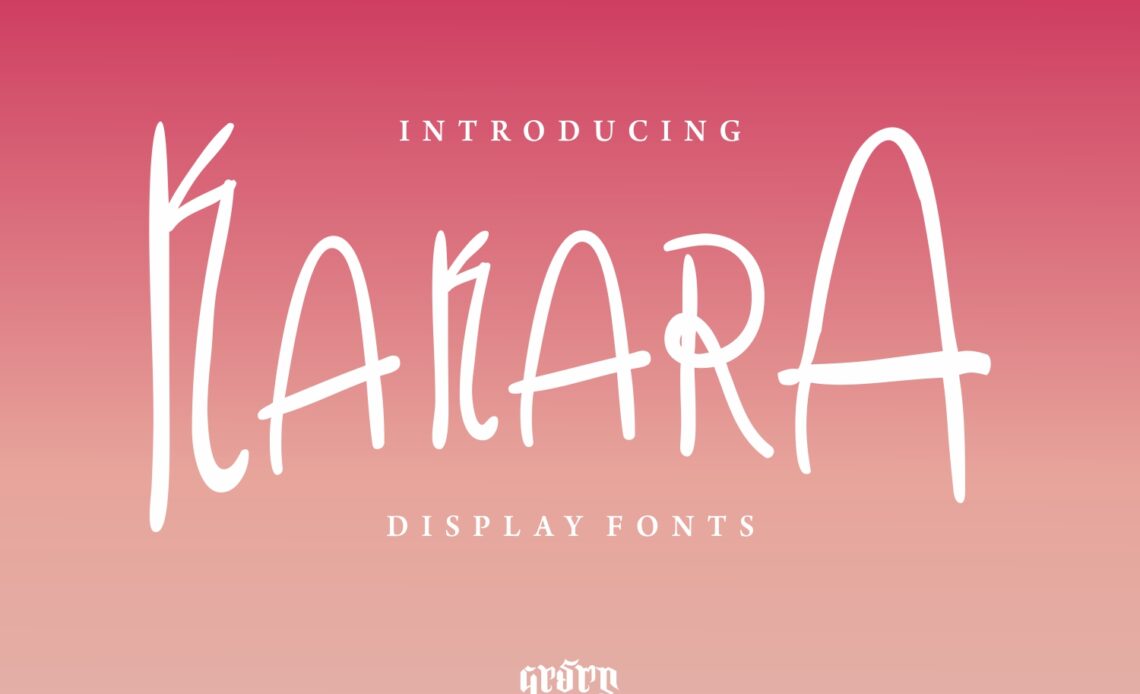
Introducing Kakara Font - Your Go-To Font for Halloween Captivation!
Prepare to be spellbound by Kakara Font, the ultimate display font that ignites the spirit of Halloween with its enchanting charm. This delightfully eerie font, conjured by the creative minds at Garisman Studio, is a masterpiece that will cast a spell on your designs, turning them into captivating works of art.
Kakara Font is not just a font; it's a gateway to a world of enchantment, where your words dance like ghosts in the moonlight. Its friendly and casual handwritten style adds a touch of whimsy to your designs, while its bold and eye-catching presence commands attention. Whether you're crafting Halloween invitations, creating spooky posters, or designing haunting websites, Kakara Font is your secret weapon to unleash your creativity.
With Kakara Font, you're not just downloading a font; you're embarking on a journey into the realm of the supernatural. Its versatility allows you to conjure a symphony of design possibilities. Let your imagination run wild as you create spellbinding logos, enchanting social media graphics, and captivating headlines that will leave your audience under your spell.